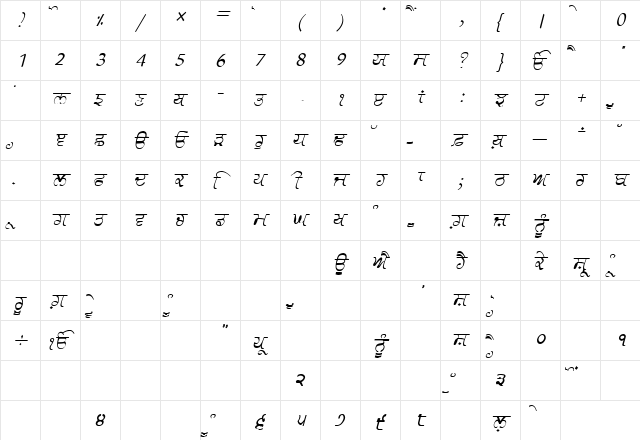
GurmukhiLys 030 Italic Font Preview
GurmukhiLys 030 Italic
Design Context for GurmukhiLys 030 Typeface
GurmukhiLys 030 offers clean, dependable letterforms without strong stylistic allegiance, making it a practical choice for designers who need flexibility. The slanted form adds forward momentum and visual energy.
Pro Tip: Try GurmukhiLys 030 for annotation and caption copy alongside an upright companion — the contrast in angle creates a dynamic but ordered typographic system.